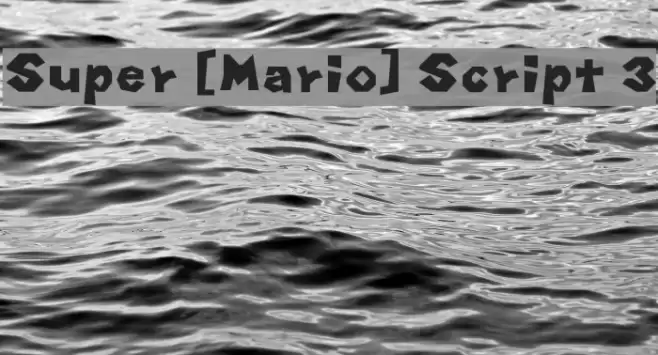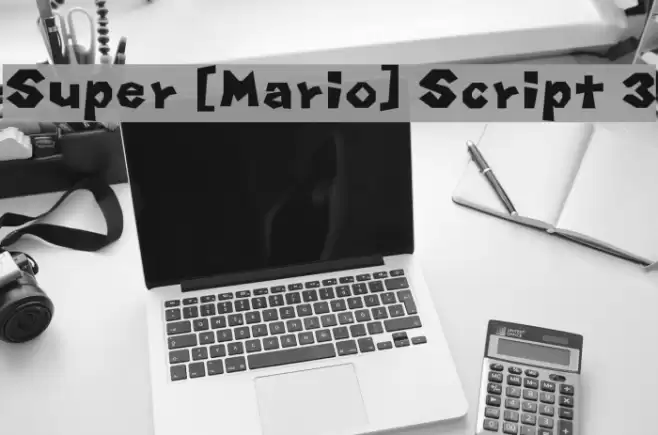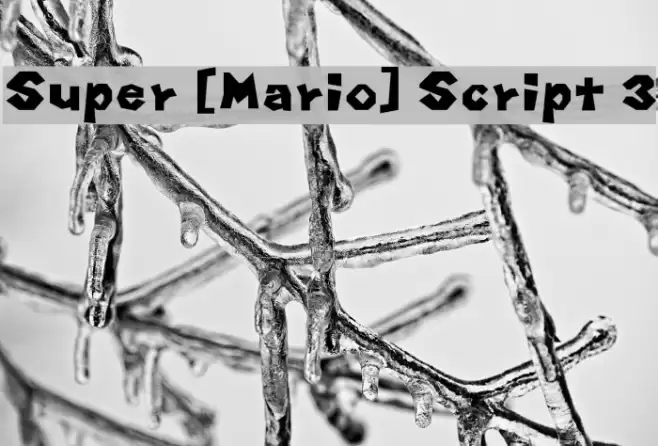
Super [Mario] Script 3 Font
Super [Mario] Script 3 Description
This font features a playful and bold design with a distinctly angular and geometric style. Each character is crafted with sharp edges and a slightly irregular form, giving it a dynamic and energetic appearance. The uppercase and lowercase letters maintain a consistent style, with a strong emphasis on individuality and creativity. The numbers and special characters follow the same design principles, ensuring a cohesive look across all glyphs. This font is ideal for projects that require a fun and engaging visual impact.
A bold, angular font with a playful and dynamic style from Uncategorized fonts.
- Proposed Projects: Perfect for video game designs, children's books, posters, and branding that requires a lively and unique touch.
- Overall Style: Playful, Energetic, Geometric